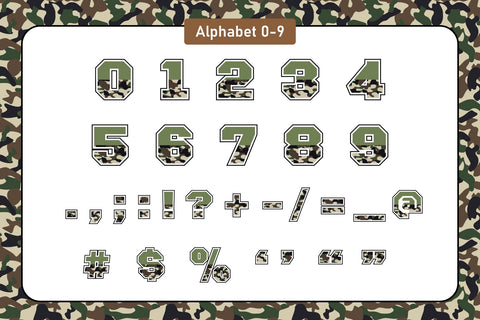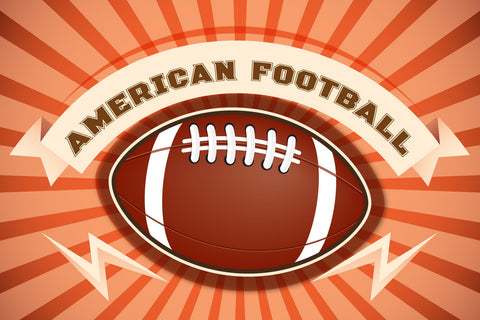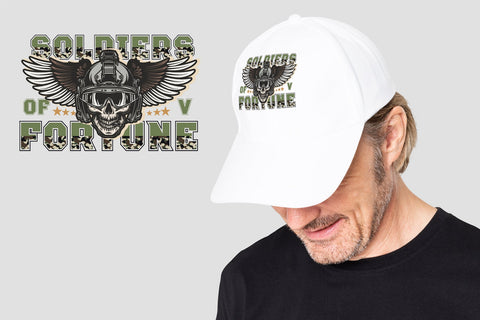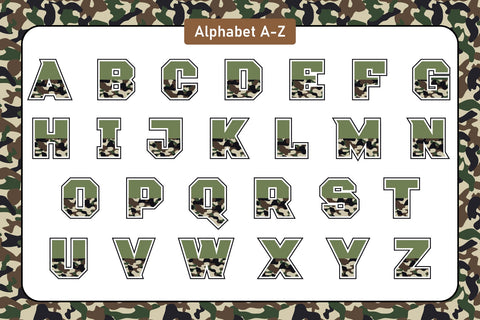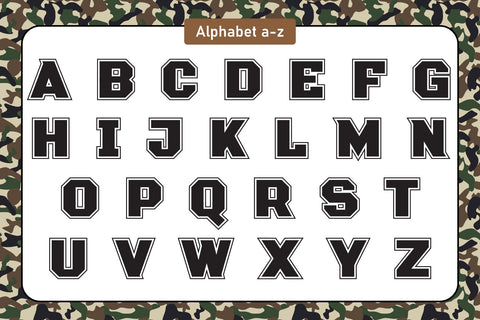
Half Soldier Color Fonts
Half Soldier is a cool and fun color font designed in two styles. It is a unique font that has a color and pattern in the font itself. And the other is a font that you can change the font color as you like. It will be suitable for designing t-shirts, tote bags, hats, stickers, wedding designs, logos, cards, quotes, and more! Half Soldier will make any creative idea stand out!